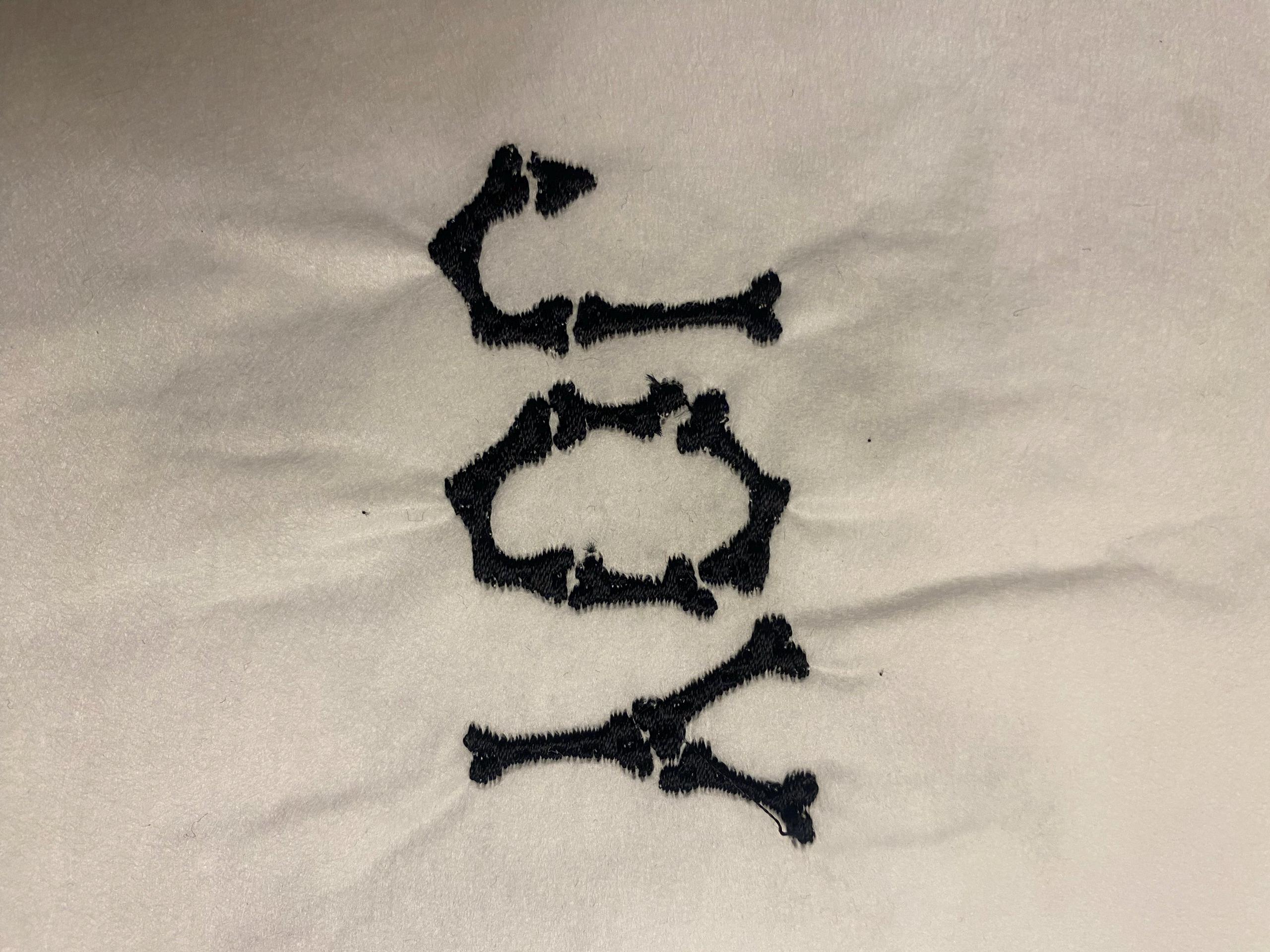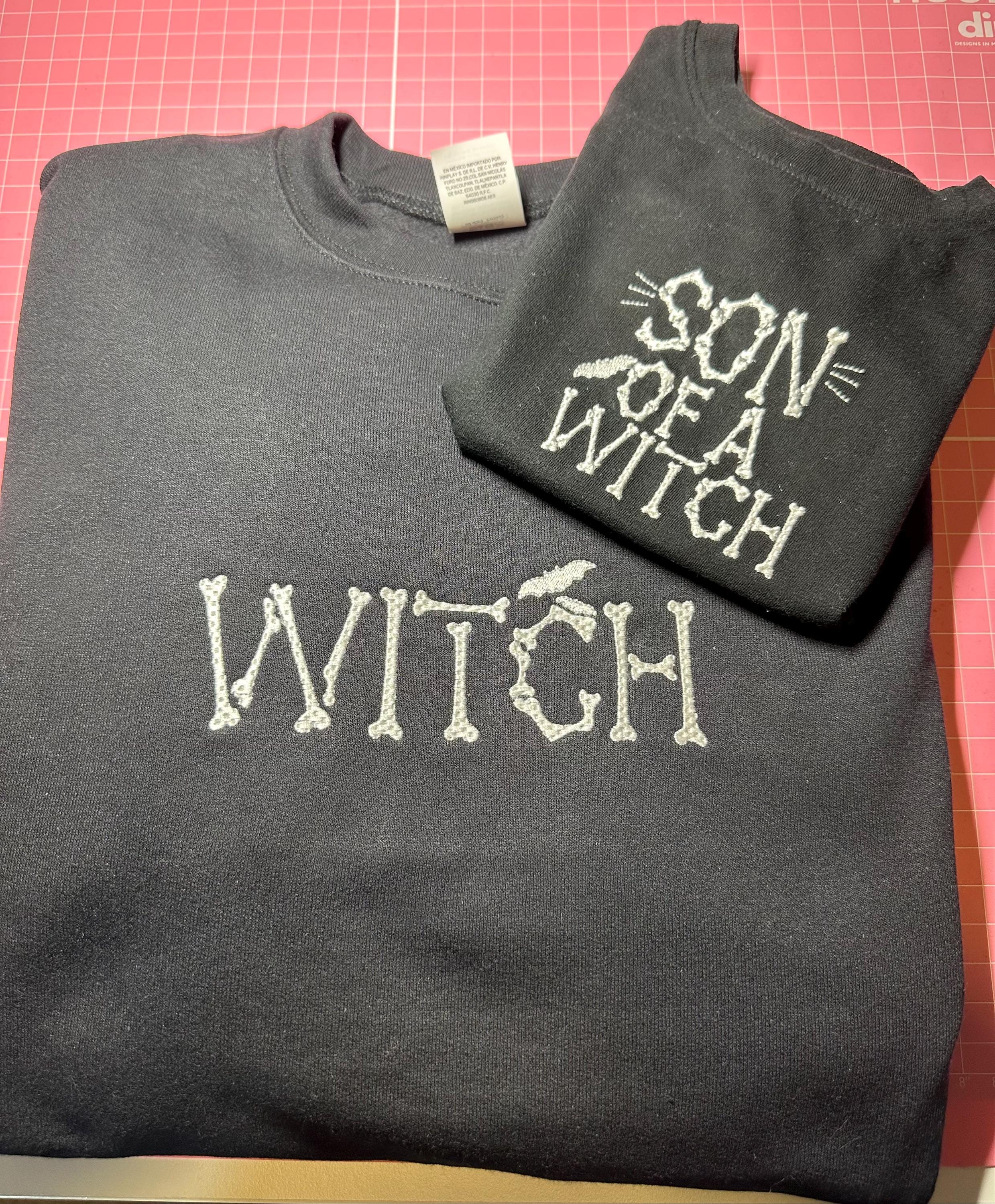
Halloween Spooky Bones Font scary alphabet letters from Skeleton Bones machine embroidery designs Boo font monogram sizes 1 up to 3.7inch BX
Halloween Spooky Bones Font scary alphabet letters from Skeleton Bones machine embroidery designs Boo font monogram sizes from 1 up to 3.7 inches, BX included
Whole alphabet A-Z uppercase letters.
Waffle texture fill stitch design.
I used this font to create shirts I had seen on ETSY. They turned out great!
Haven't used yet but have tested--very pleased with sew out. Download was very easy. I am planning to use this font for a banner. Very good design
Perfect see out! Loved final Product!